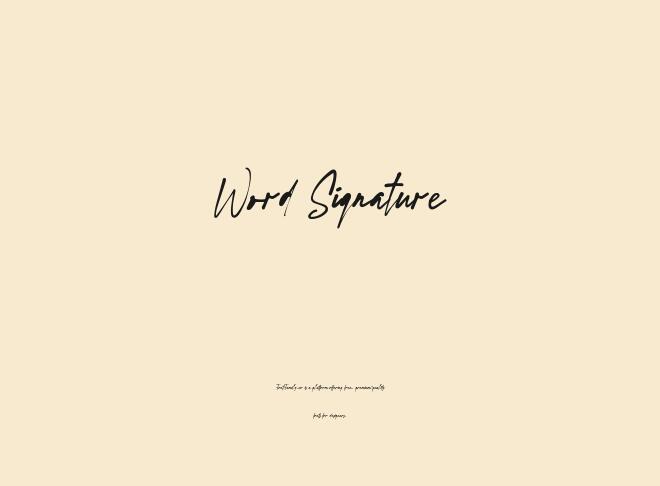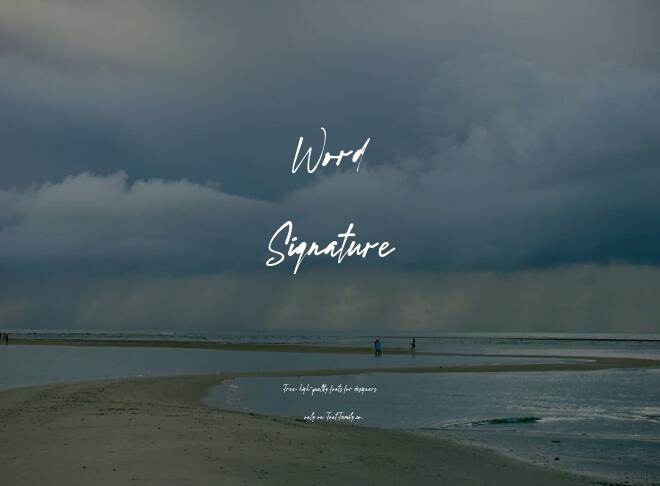
Word Signature Font
Introducing Word Signature Font - a unique blend of classic handwriting and modern script typography. Crafted with precision by Signature Fonts Foundry, this font captures the natural flow and elegance of traditional handwriting, making it perfect for personal branding, wedding invitations, business cards, and social media posts. Its smooth curves and crisp edges set it apart from other handwritten fonts, offering a more distinguished and professional look. Compared to other fonts in the market, Word Signature Font provides a more personal touch, giving your designs a distinctive and authentic feel. It's an excellent choice for designers looking for a font with elegance, readability, and a touch of uniqueness. The Word Signature Font is licensed under the Open Font License, making it free for both personal and commercial use.